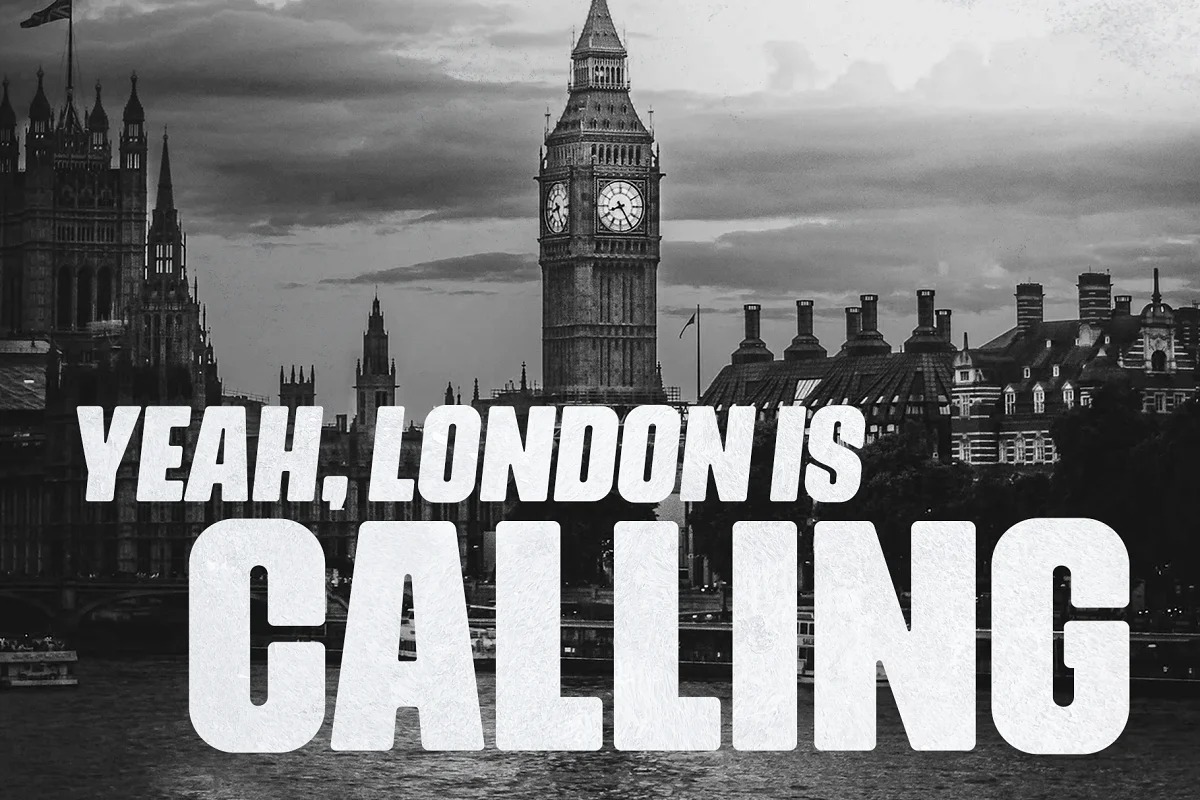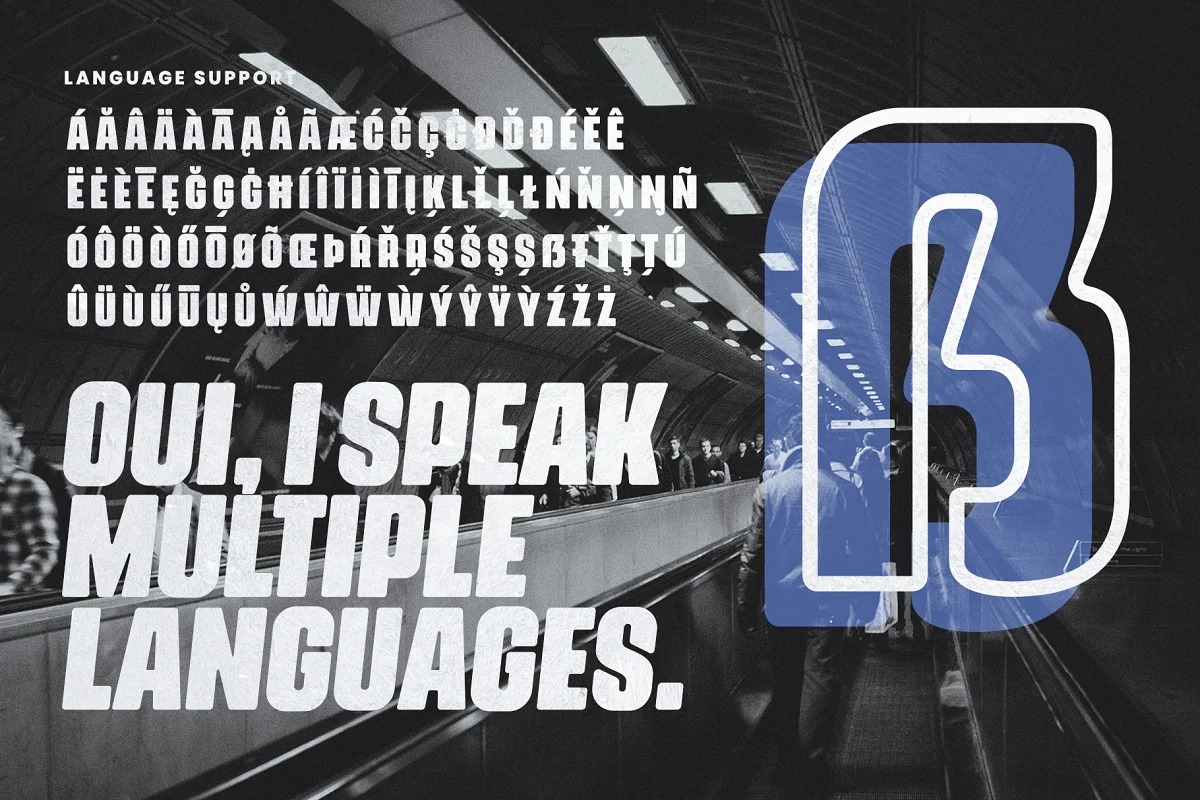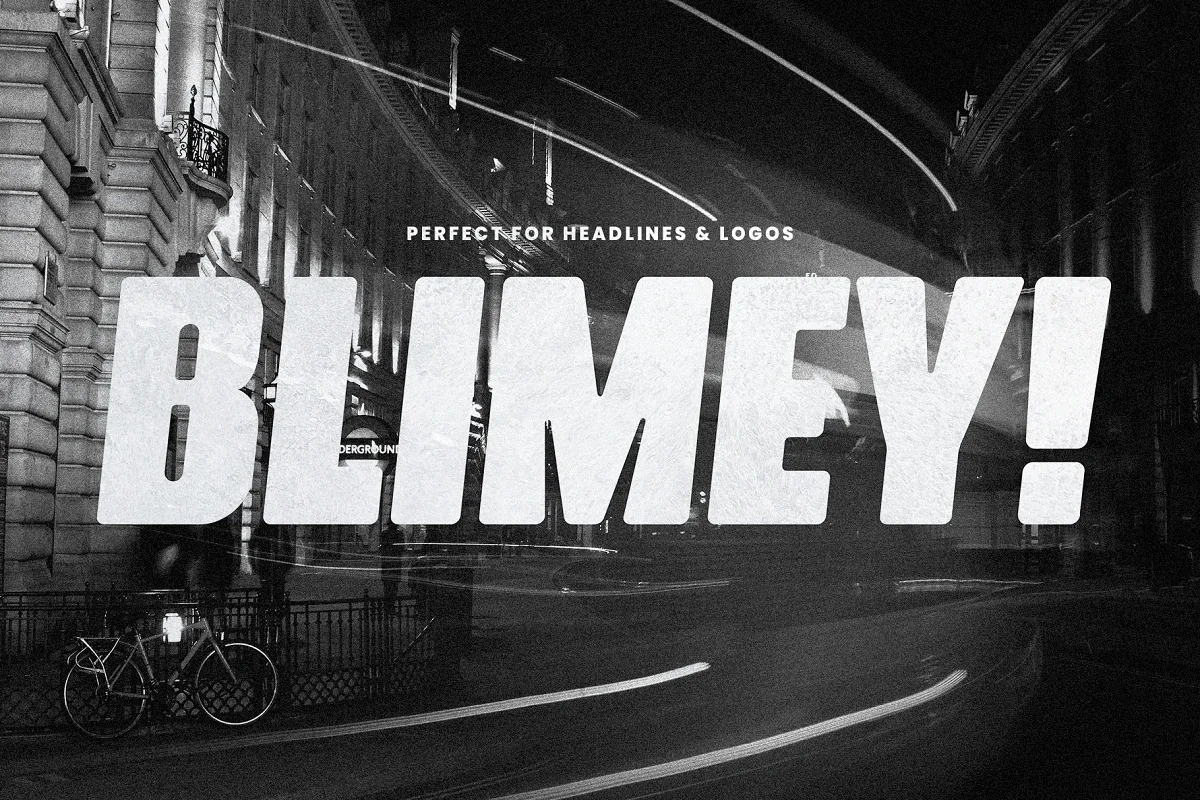
Mind The Caps Font
Mind The Caps Display Font
This is a bold all-caps display typeface made for those occasions when you’re in need of some extra weight. Its smoothness and rounded edges present the font with a new, unique character. At the same time you can use the font for logos, headline or bold statements and it’s always an eye-catcher. It also looks fantastic in it’s italic style, which of course is also included with every purchase.